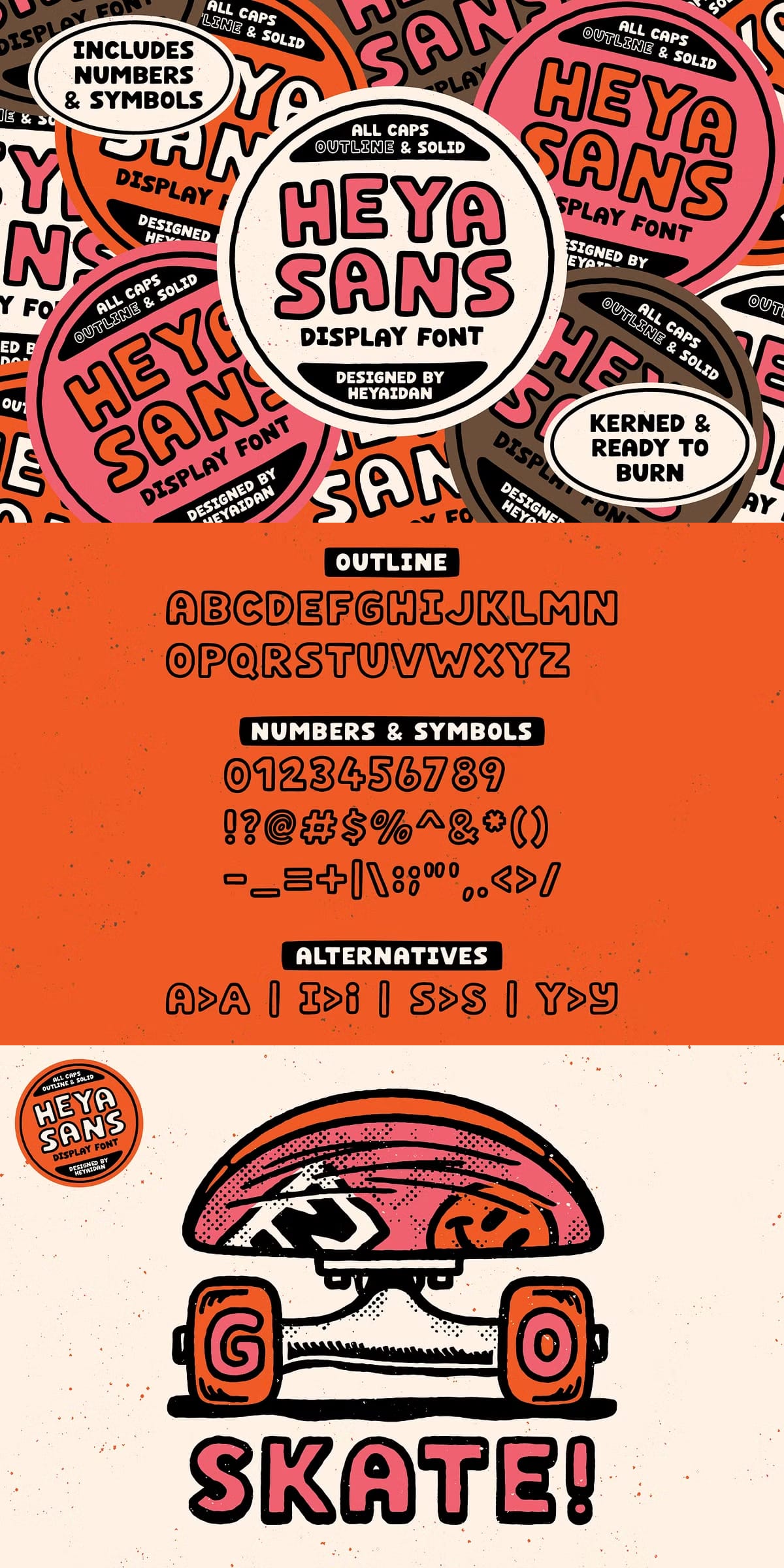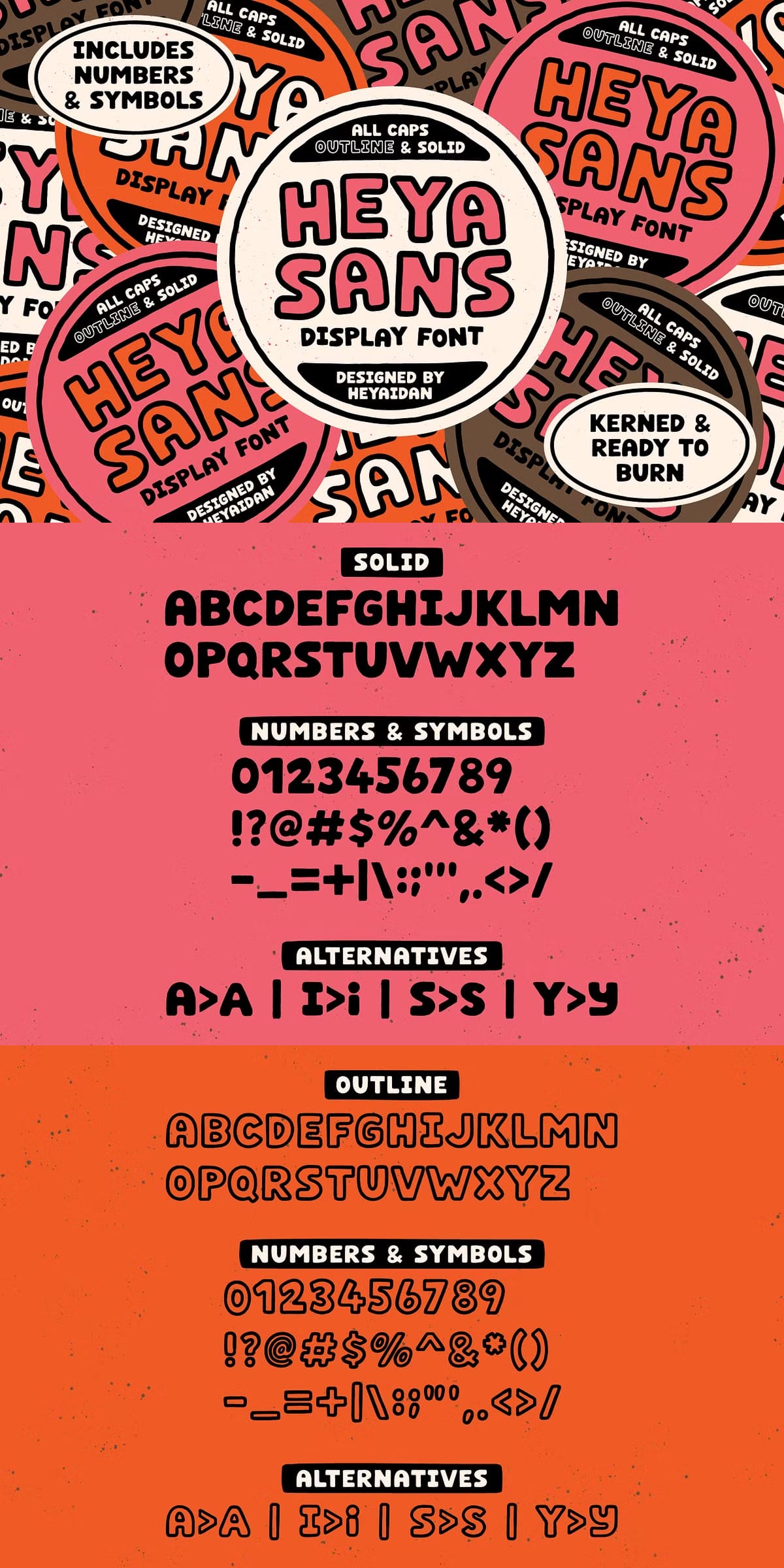
Elevate your design projects with the HEYA Sans Display Font, an exciting typeface that brings an element of fun to any creative endeavor. This font is designed to make a statement with its bold and blobby appearance, ensuring that your text captures attention whether it’s used in large headlines or smaller body text.
Key Features of HEYA Sans Display Font
The HEYA font family is packed with features that make it versatile and engaging:
- Bold Design: The thick strokes of the letters create an impactful presence on any page or screen.
- Playful Aesthetic: Its unique blobby shapes add character to your designs, making them stand out from the crowd.
- Scalable Versatility: Whether you scale it up for eye-catching posters or down for subtle branding materials, HEYA maintains its charm without losing legibility.
- Diverse Applications: Perfectly suited for various design contexts such as social media graphics, event flyers, product packaging, logos, and more.
Create Engaging Designs with Ease
The versatility of the HEYA Sans Display Font allows designers to unleash their creativity across multiple platforms. Use this font in digital marketing campaigns where grabbing attention is crucial or incorporate it into print materials where you want to leave a lasting impression. Its playful nature makes it ideal for children’s products or any project aimed at evoking joy and excitement.
User-Friendly Experience
This font comes equipped with all necessary characters including uppercase letters, lowercase letters, numbers, punctuation marks—everything you need to create comprehensive designs effortlessly. The clean lines combined with its whimsical style ensure that every word pops off the page while remaining easy to read.
A Perfect Addition to Your Design Toolkit
If you’re looking for a way to inject personality into your work without sacrificing professionalism or clarity—look no further than the HEYA Sans Display Font! It seamlessly blends fun aesthetics with practical usability making it an essential tool in every designer’s arsenal.